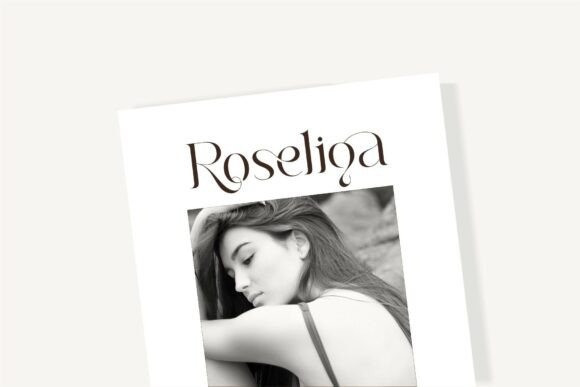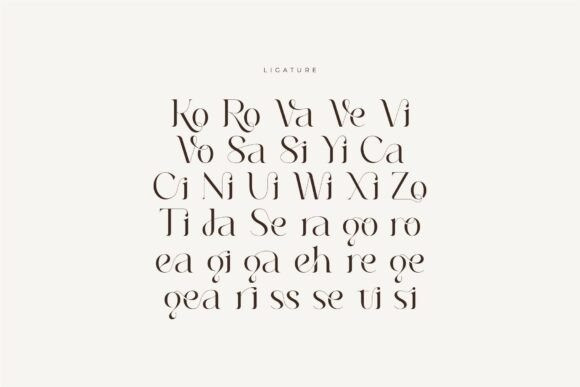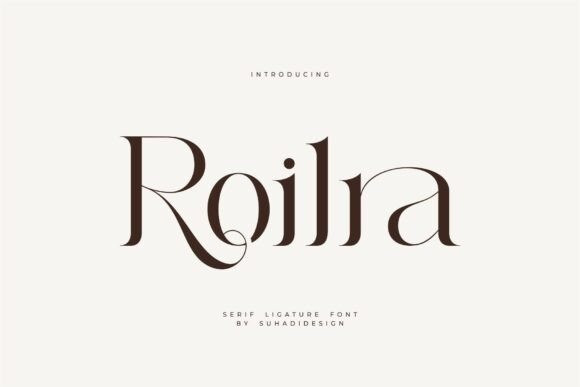
Roilra Font is a refined serif typeface, featuring elegant ligatures and high-contrast strokes, seamlessly blending modern sophistication with timeless elegance. Each letter is meticulously crafted with soft curves, thin lines and subtle connections, giving the text a graceful yet modern look. Completely versatile, Roilra is perfect for branding, editorial layouts, invitations and luxury packaging, offering a refined tone that exudes elegance and creativity. The balance between readability and artistic style makes it a must-have font for designers looking for a font that exudes style and originality.
Roilra is also PUA-encoded, ensuring easy access to all glyphs, glyphs and alternate characters, allowing you to customize your work with ease.